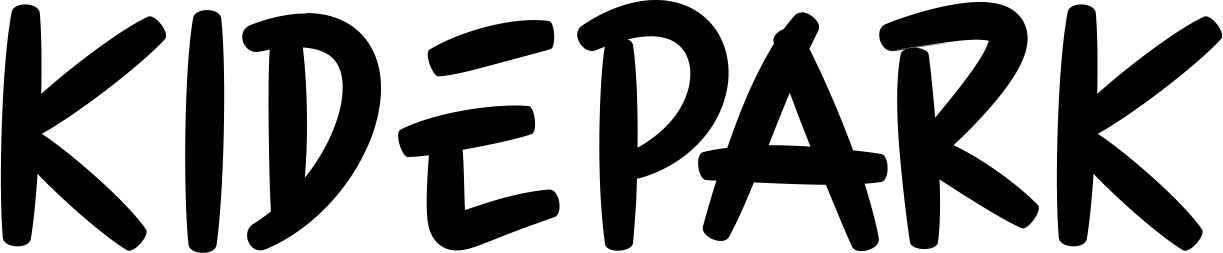
Kidepark Font
When it comes to designing a text-based layout for a happy and friendly situation, cartoon island fonts are a must. Now Kidepark is here in 2 distinct versions and gives you this opportunity to choose your favorite. Hit the download button without further delay and wow your clients. Note that this case doesn’t include numbers.